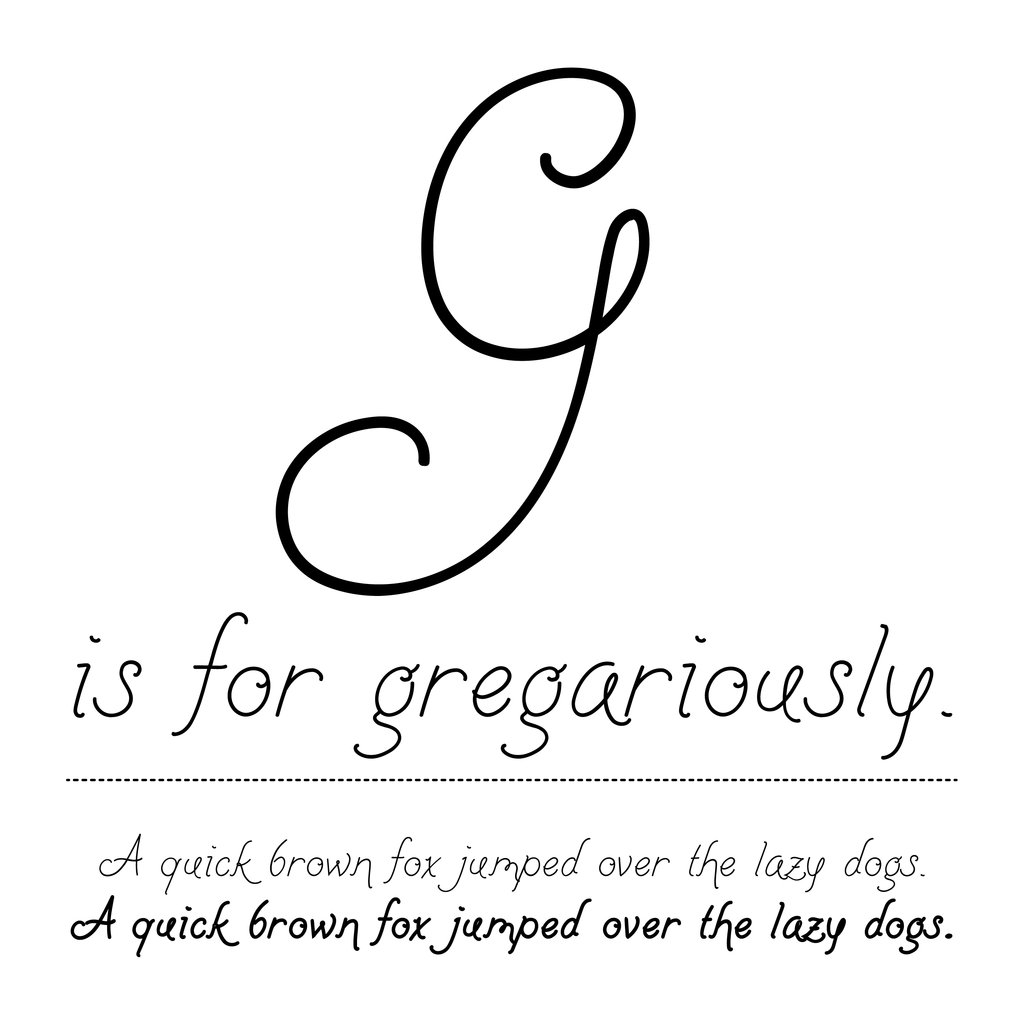
Bull Run
Online libraries of Civil War love letters show the importance and intensity of written correspondence in the 19th Century. Bull Run is an old-fashioned cursive font inspired by letters between soldiers and their sweethearts back home. It is purposely imprecise and inconsistent for a natural antique handwriting effect.
Bull Run Regular includes uppercase and lowercase alphabet, 0-9, many special characters for for multi-language support, and punctuation.